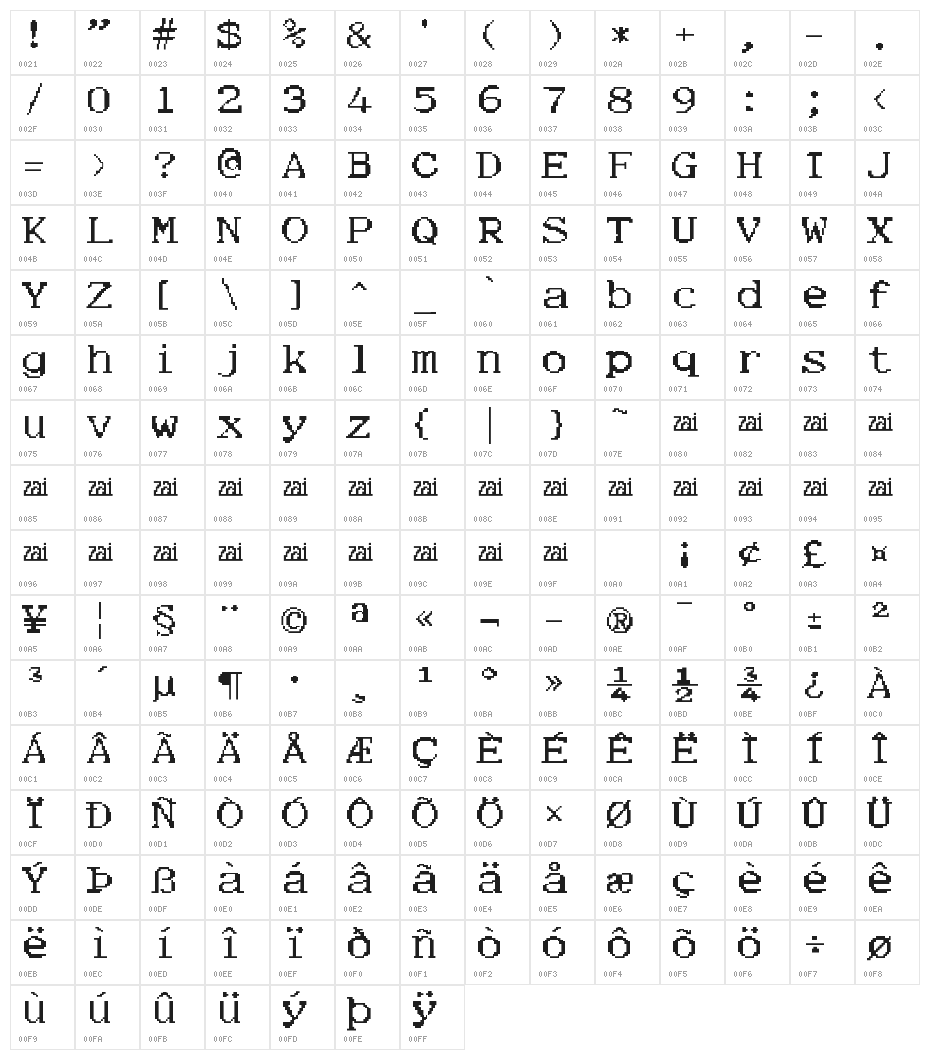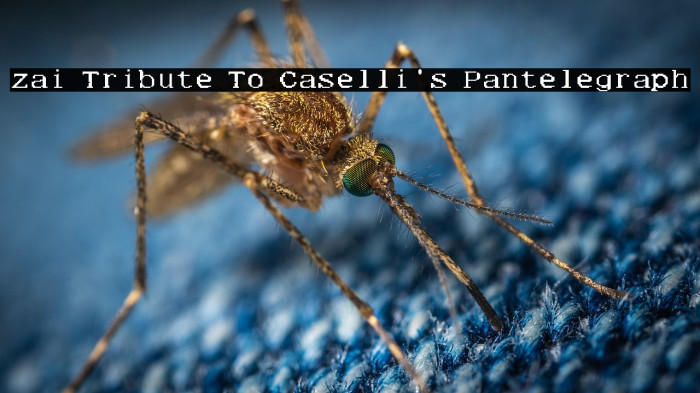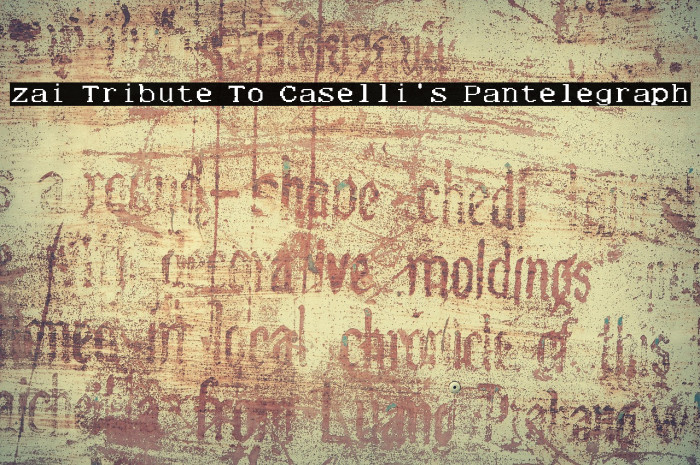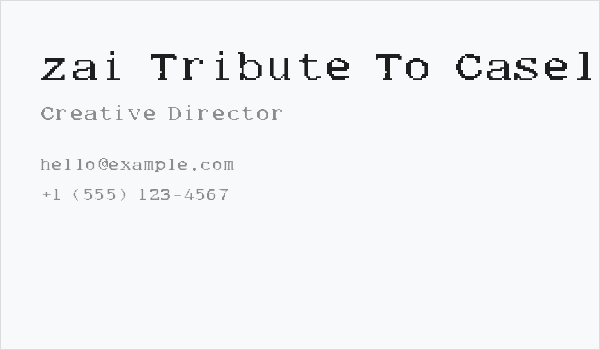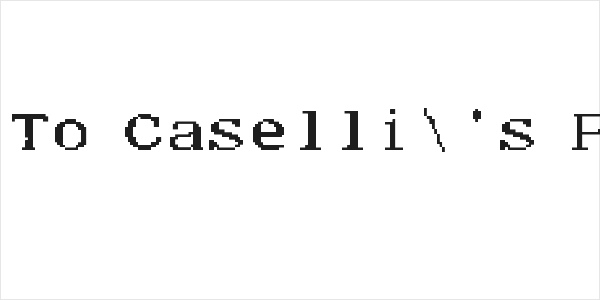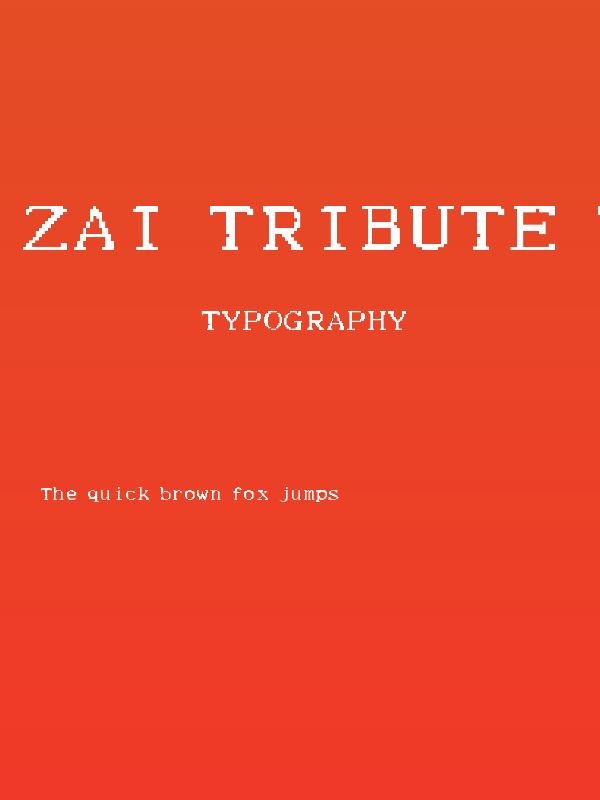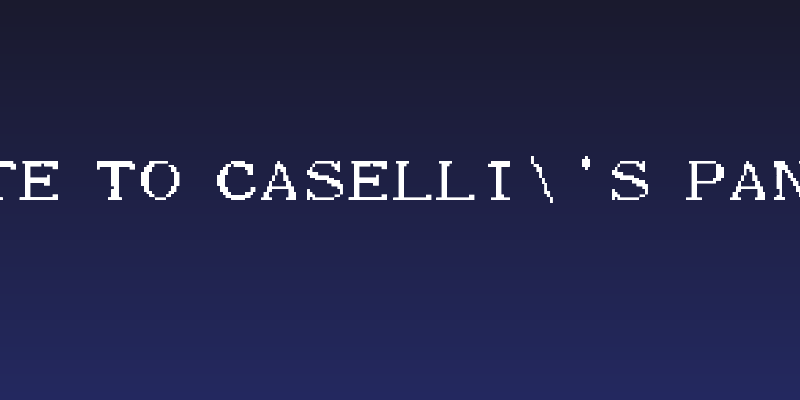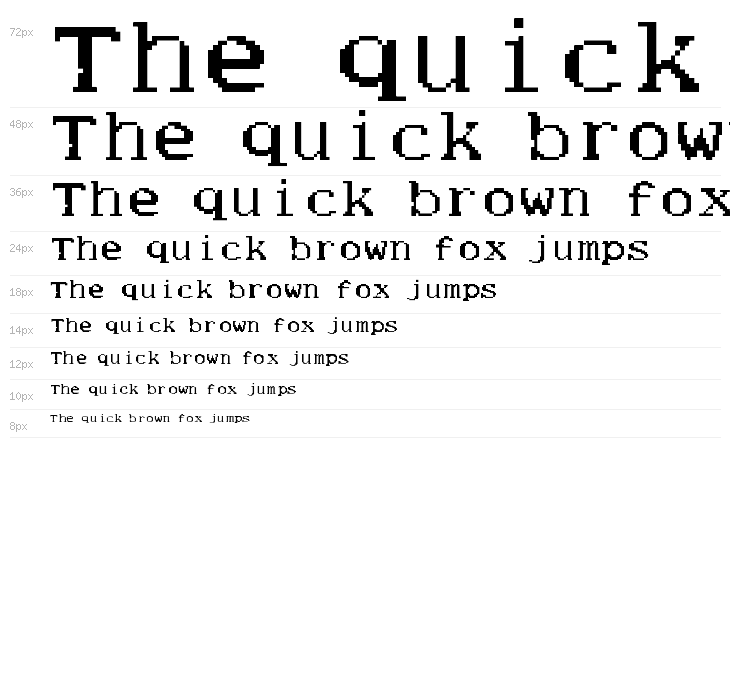
zai Tribute To Caselli's Pantelegraph Font
zai Tribute To Caselli's Pantelegraph Description
This font features a distinct serif style with a classic and slightly vintage appearance. The characters are well-defined with sharp serifs, giving it a formal and traditional look. The uppercase letters are bold and prominent, while the lowercase letters maintain a consistent style with slightly less emphasis. Numbers are clear and easy to read, matching the overall aesthetic of the font. The special characters are designed to complement the letterforms, maintaining the same serif characteristics. The font's structure is balanced, making it suitable for various design applications.
| Use Case | Headlines, Body text, Editorial design |
| Proposed Projects | Ideal for projects requiring a traditional and formal look, such as book covers, editorial design, and formal invitations. |